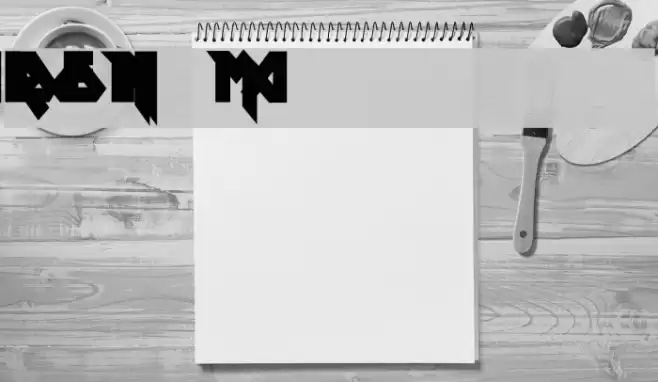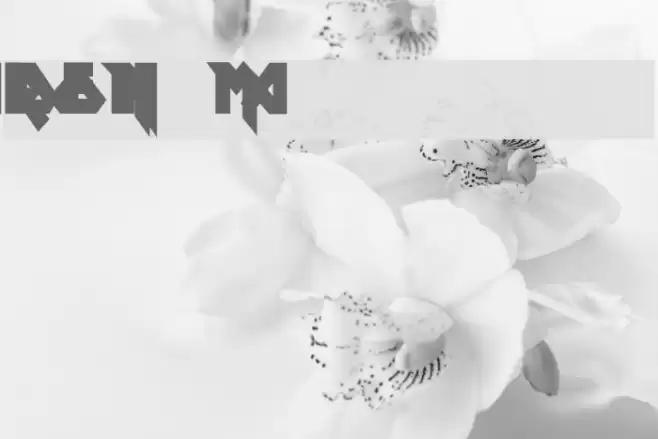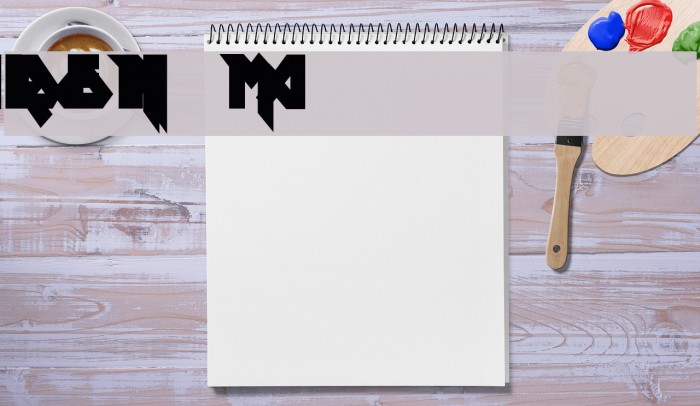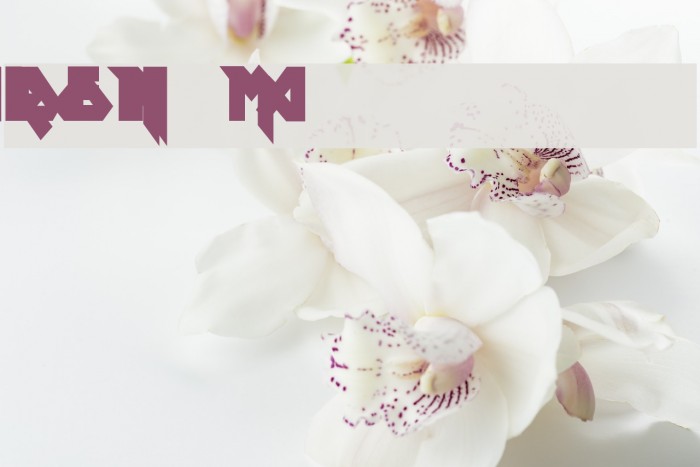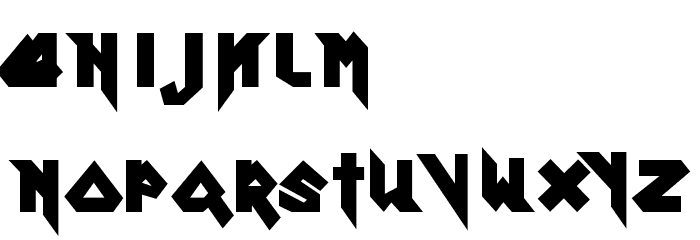
Ron Maiden Font
Ron Maiden Description
This font features a bold and angular design, reminiscent of heavy metal and rock band aesthetics. The characters are constructed with sharp, geometric edges and a blocky appearance, giving them a strong and aggressive look. The uppercase and lowercase letters maintain a consistent style, with each character exhibiting a unique, edgy flair. The numbers and special characters follow the same design principles, ensuring uniformity across the entire typeface. This font is ideal for projects that require a bold statement and a touch of rebelliousness.
A bold, angular font with a heavy metal aesthetic from Gothic fonts.
- Proposed Projects: Ideal for music album covers, band logos, event posters, and merchandise designs.
- Overall Style: Modern, Decorative